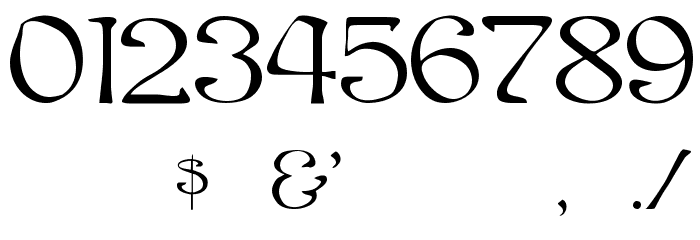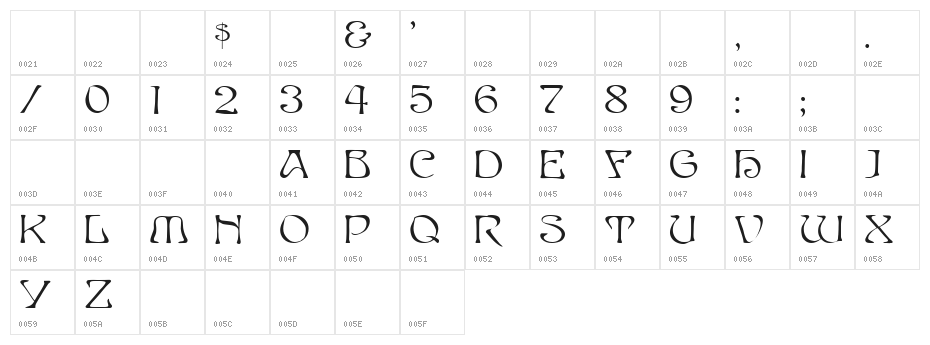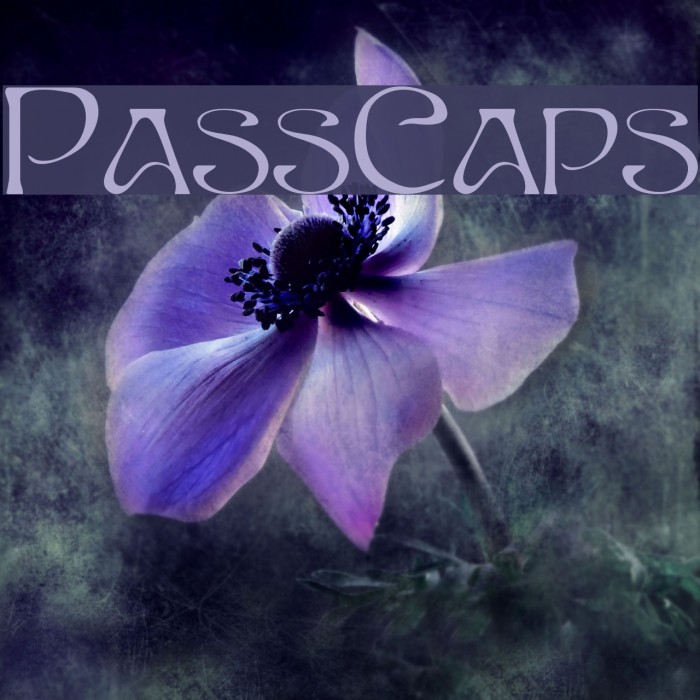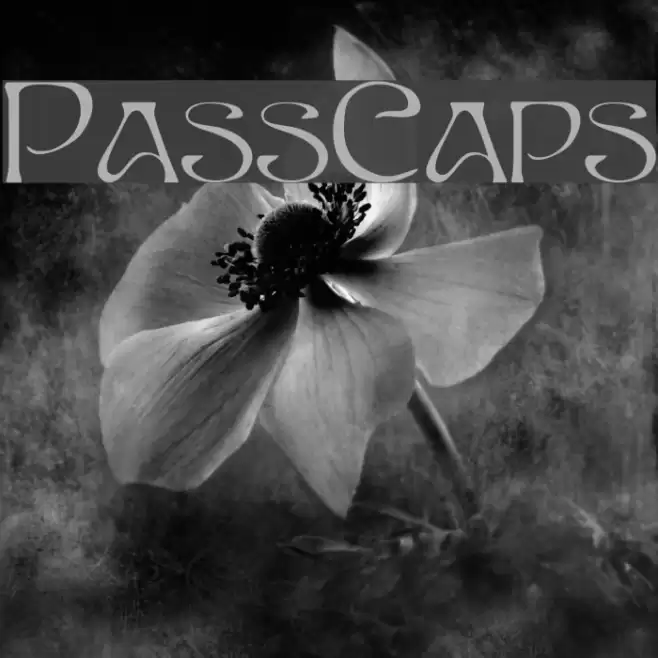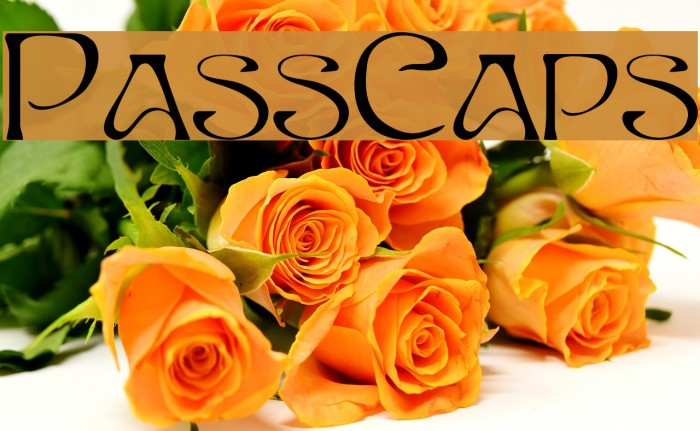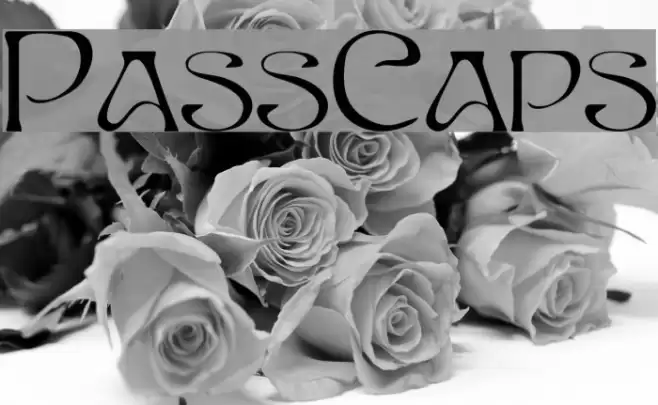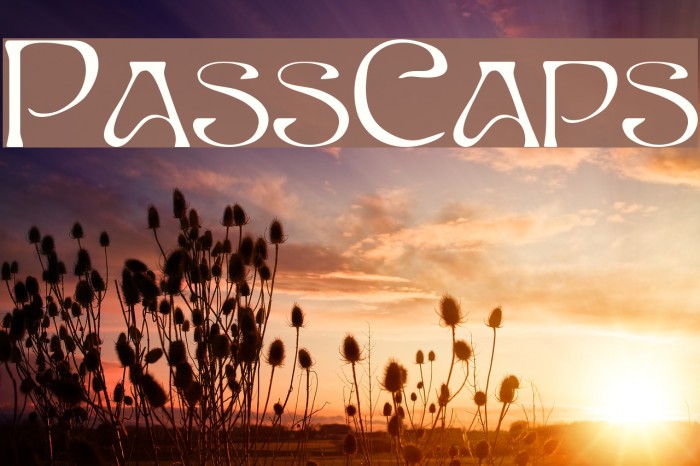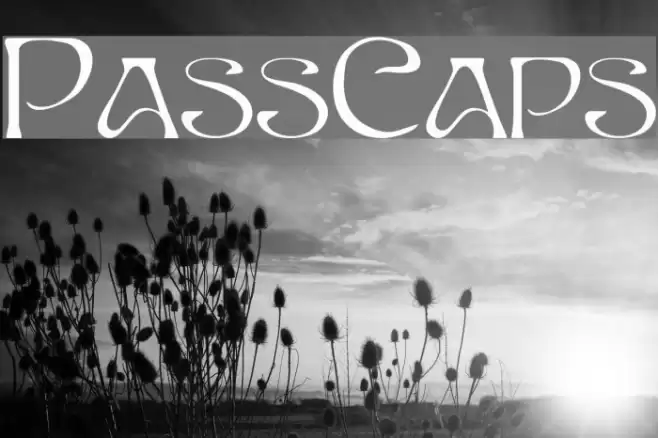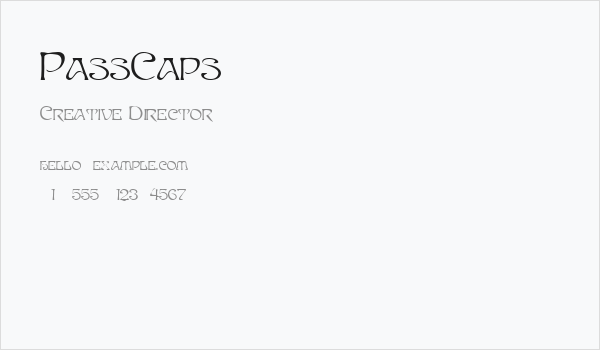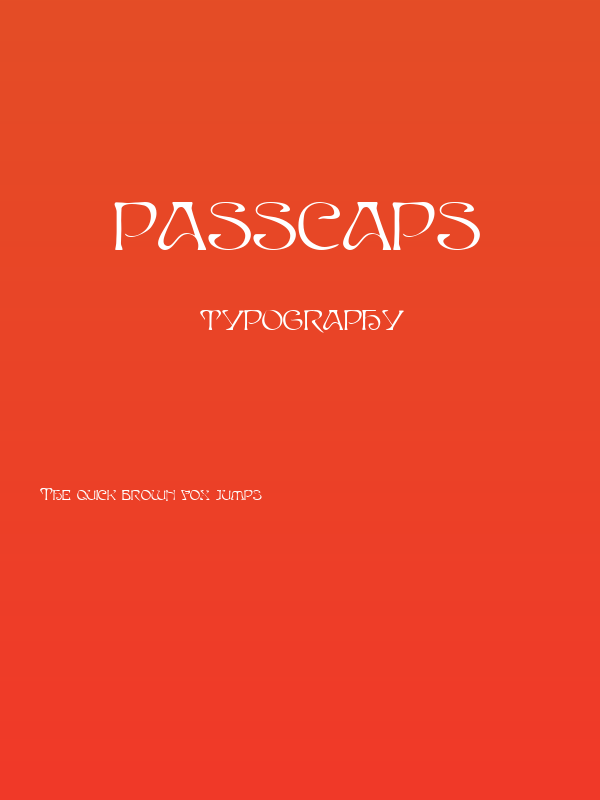
PassCaps Font
PassCaps Description
This font features a unique and artistic design with a blend of modern and vintage elements. The uppercase letters have a distinctive flair, with sharp angles and curves that give them an elegant yet bold appearance. The lowercase letters maintain a consistent style, complementing the uppercase with their own subtle curves and angles. The numerals are equally stylized, offering a cohesive look across all characters. Special characters are designed to match the overall aesthetic, making this font suitable for creative and decorative purposes. Its intricate design suggests a careful attention to detail, making it stand out in any project.
| Proposed Projects | Ideal for branding, logo design, posters, and invitations where a unique and artistic touch is desired. |